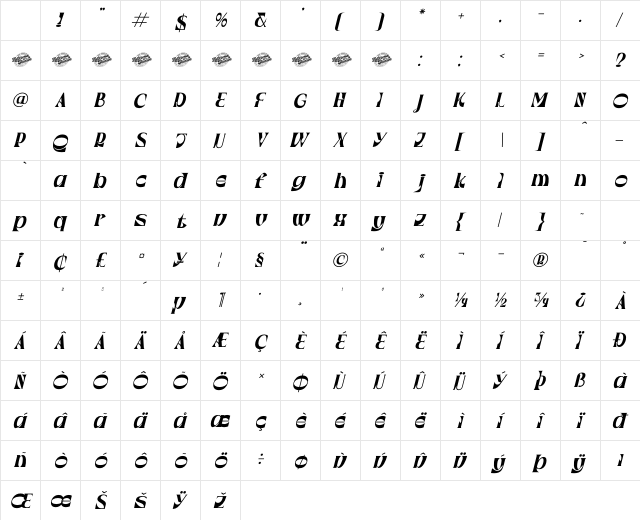
Waflerd DEMO VERSION is a composed and adaptable typeface that performs quietly and consistently across a wide range of design contexts. The slanted form adds forward momentum and visual energy.
Pro Tip: Use Waflerd DEMO VERSION for emphasis, pull quotes, and subheadings where its slanted energy can add rhythm to the layout.